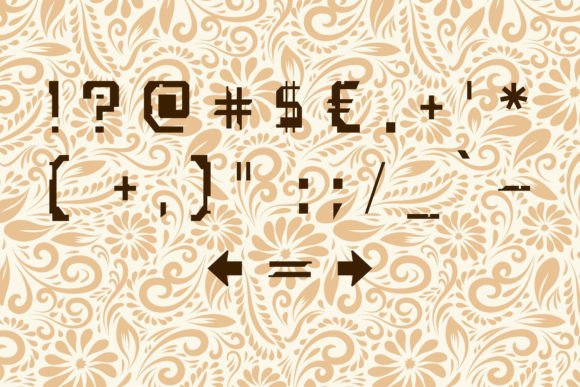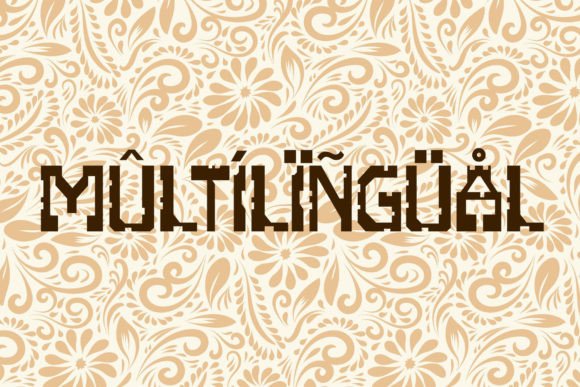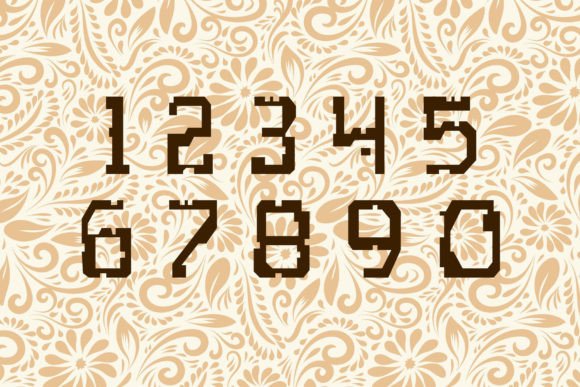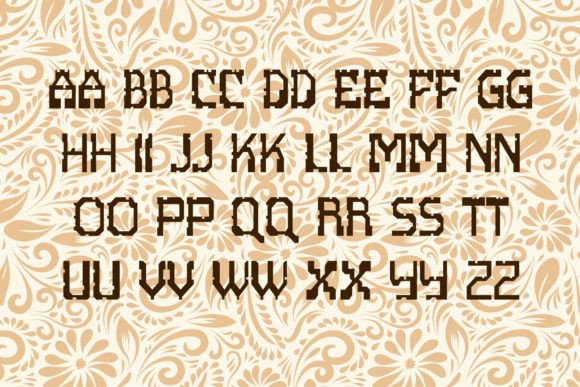
Introduction to Metal King Font
Have you ever found yourself staring at a blank canvas, searching for the perfect font to bring your creative project to life? For designers, the quest for the ideal typography can be a daunting task. But what if I told you that you’ve been searching for the wrong thing all along? Enter the Metal King Font, a bold and eye-catching display font that’s sure to elevate your design game.
This high-quality design resource is a game-changer for any creative project. With its unique and edgy style, the Metal King Font adds a touch of sophistication and elegance to your work. Whether you’re designing a logo, a poster, or a website, this font is sure to make a statement.
Key Features of Metal King Font
- High-quality design resource with a modern and edgy feel, ideal for creative projects.
- Designed with a bold and metallic aesthetic, perfect for adding a touch of luxury and sophistication to any creative project.
Honest Review: Metal King Font
I’ve worked with my fair share of fonts, but the Metal King Font is one that truly stands out. As a designer, I’m always on the lookout for high-quality design resources that can elevate my creative projects. This font definitely fits the bill.
What works well: ✨ The Metal King Font is incredibly versatile and can be used for a wide range of applications, from logos and branding to typography and web design. The font is also highly customizable, allowing me to easily adjust the style to fit my project’s specific needs. Additionally, the transparent background option is a game-changer for me, as it makes it easy to layer the font over other design elements.
Overall, I’m really impressed with the Metal King Font. Its high quality and versatility make it a valuable addition to any designer’s toolkit. If you’re looking for a reliable design resource, I’d definitely recommend giving it a try.
Tips for Getting the Most Out of Metal King Font
Use the Metal King Font in conjunction with other high-quality design elements to create a cohesive and professional-looking design. Experiment with different font sizes, colors, and styles to get the most out of the font.
The Metal King Font is ideal for use in a variety of creative projects, including logos, icons, graphics, social media graphics, flyers, posters, presentations, reports, and documents. It is also great for use in free download templates and design resources.